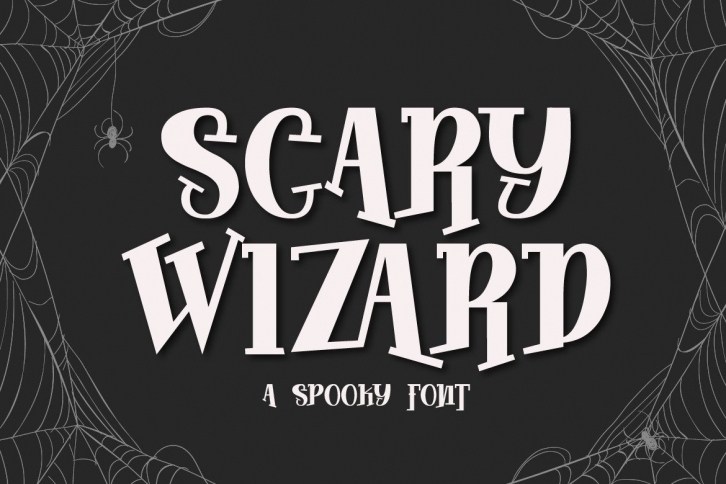
Scary Wizard is a cool, thick lettered and spooky display font. No matter the topic, this font will be an incredible asset to your fonts’ library, as it has the potential to elevate any creation.